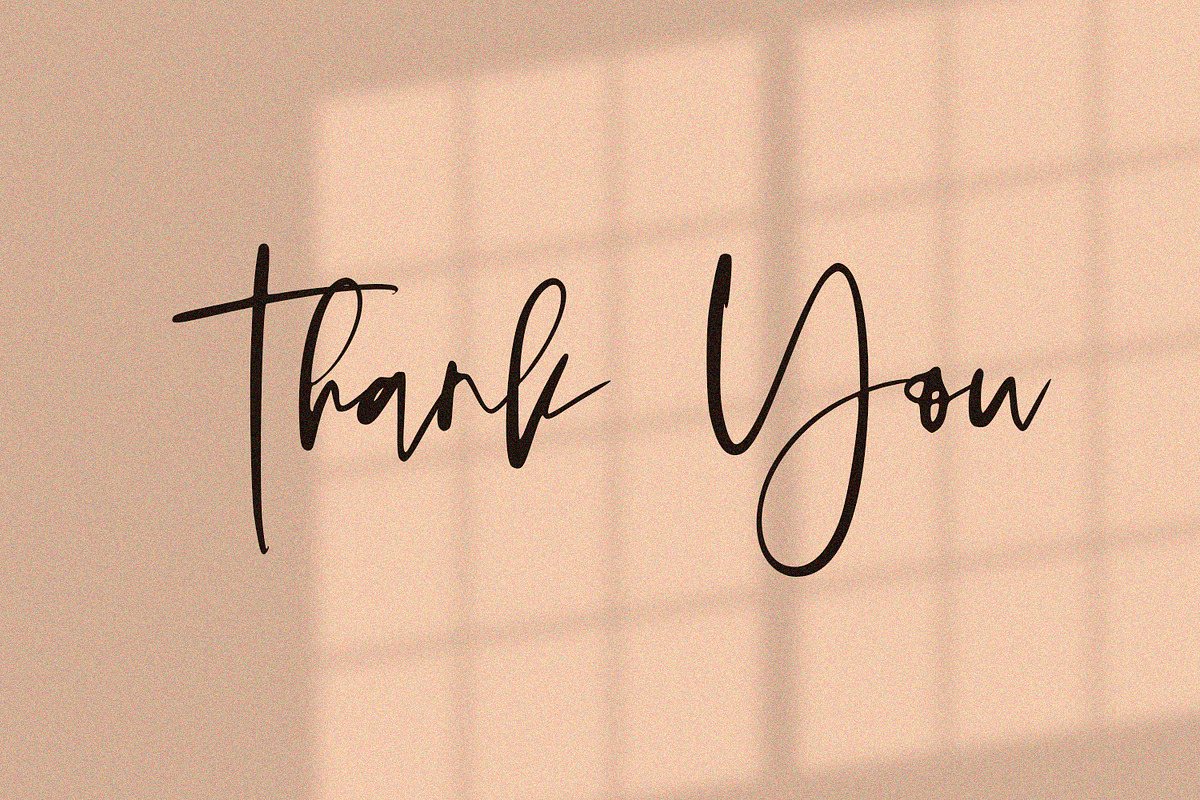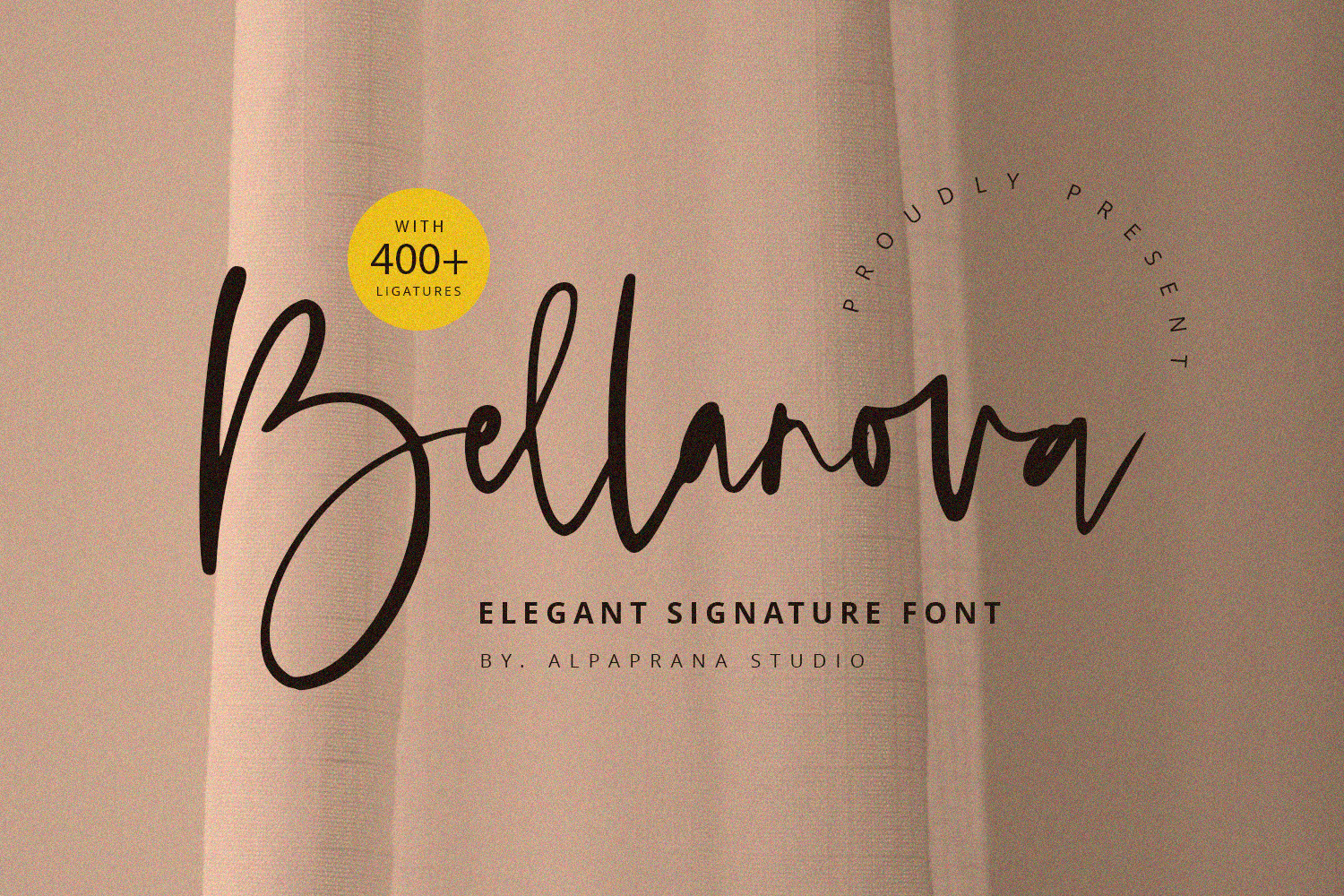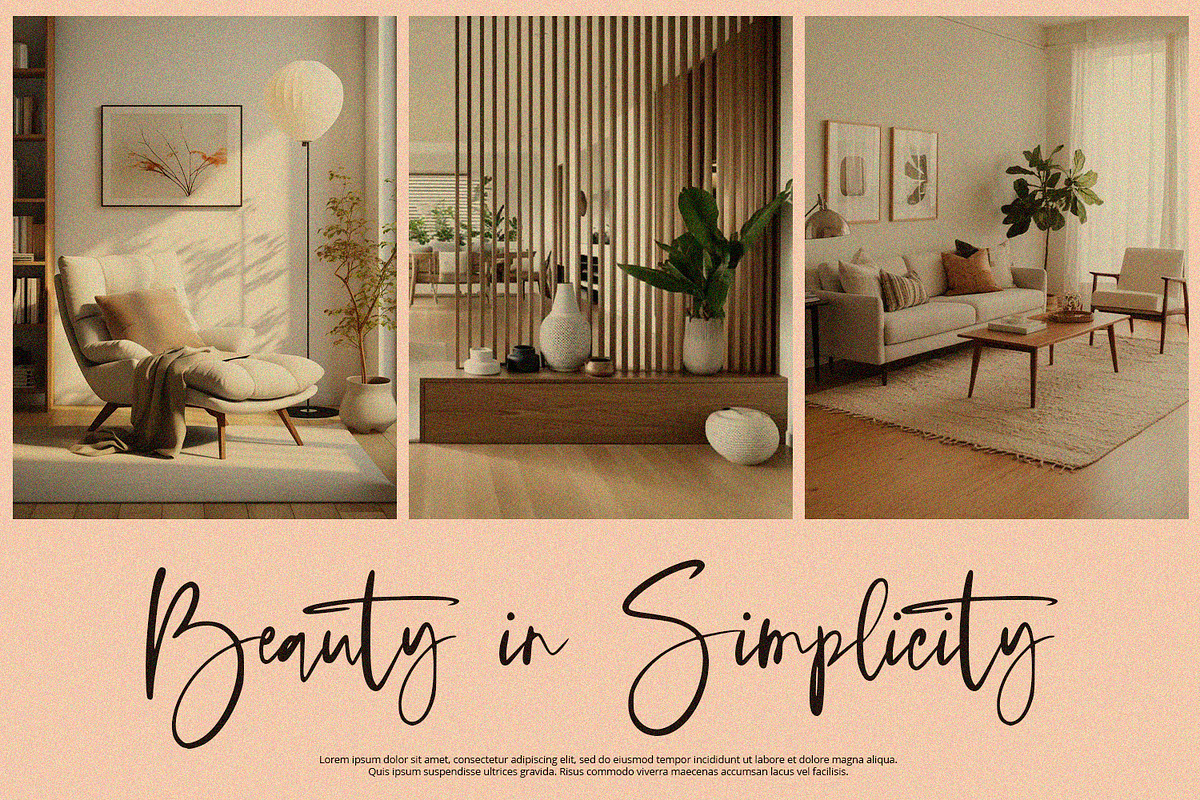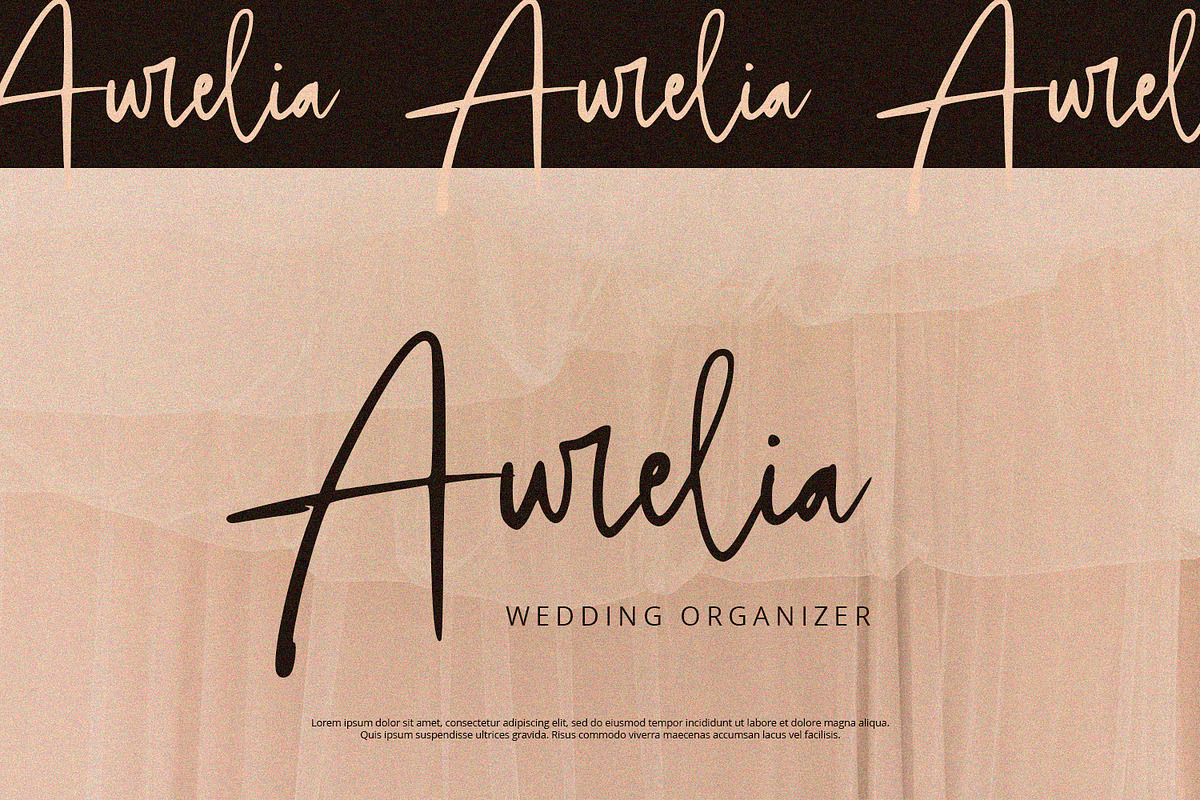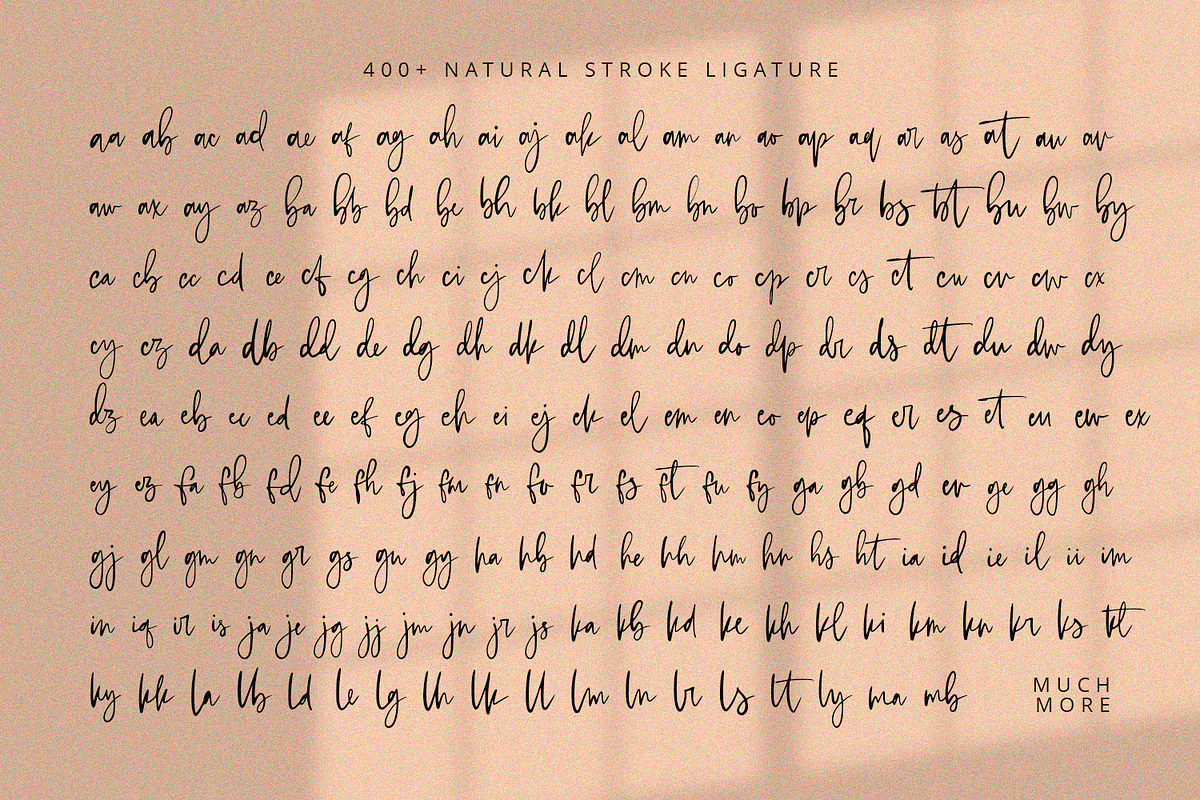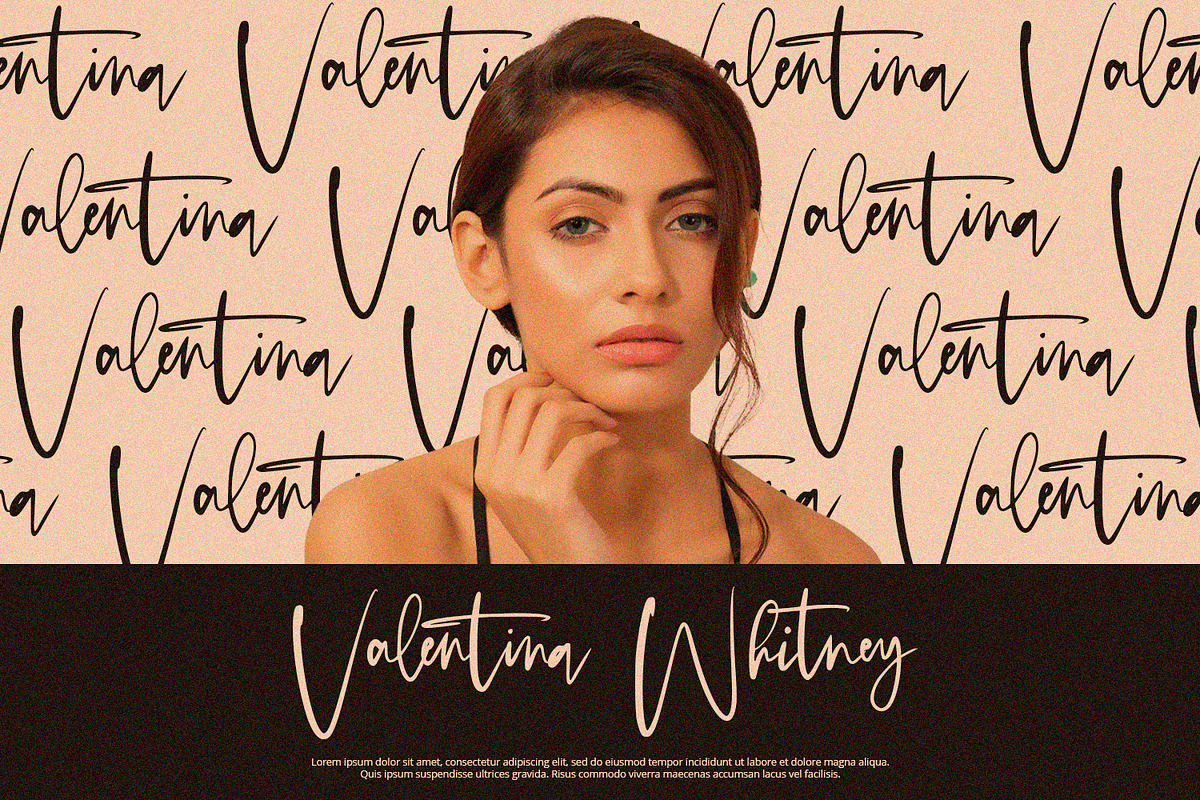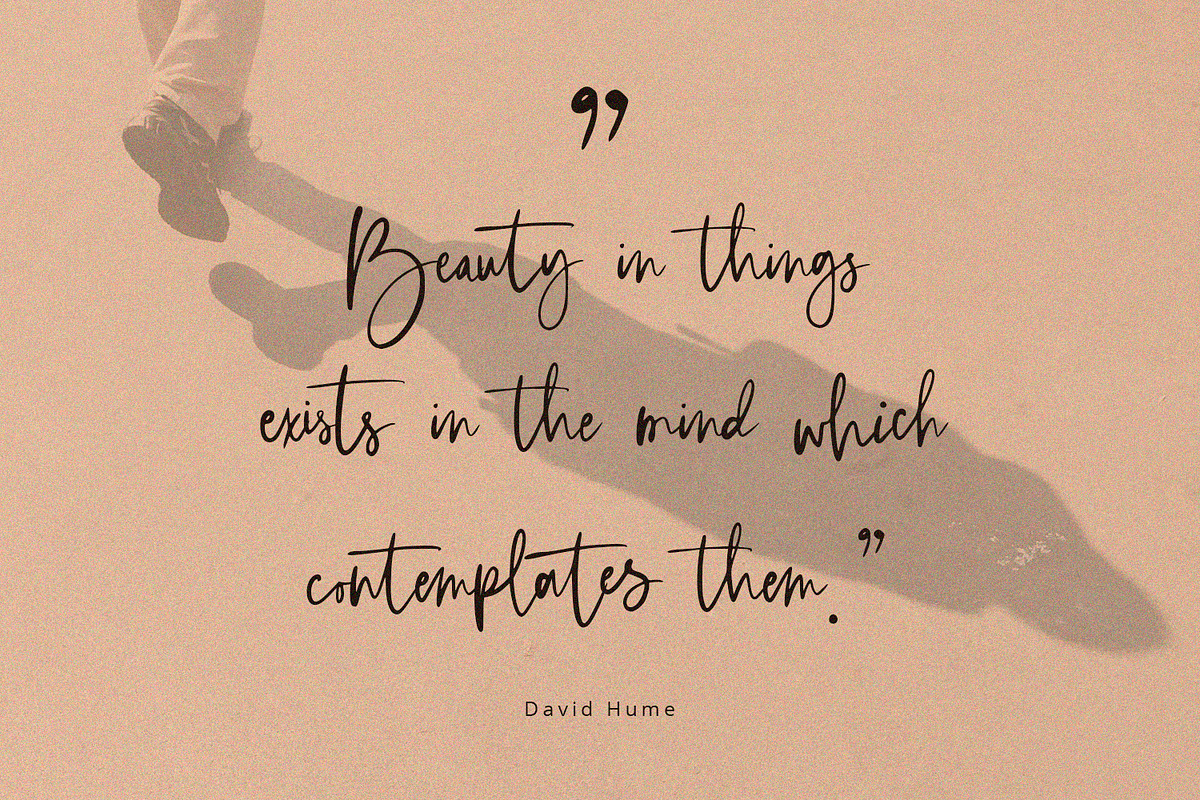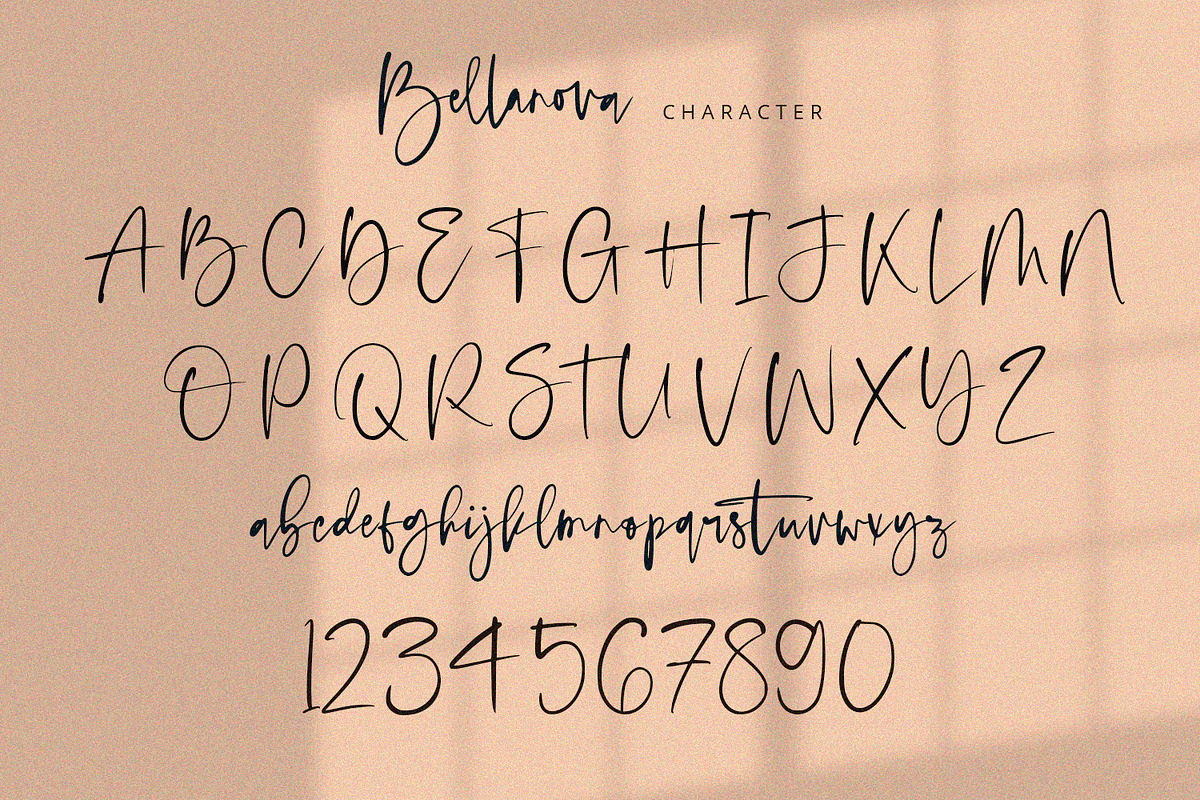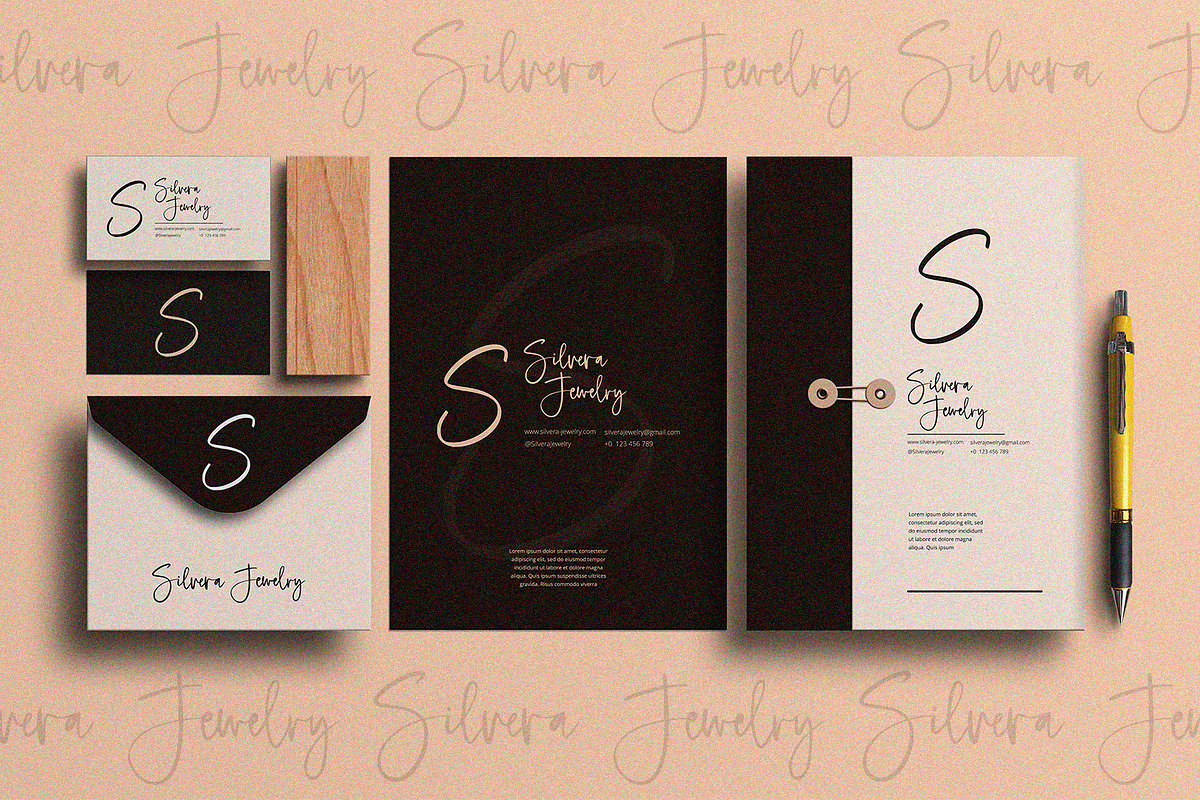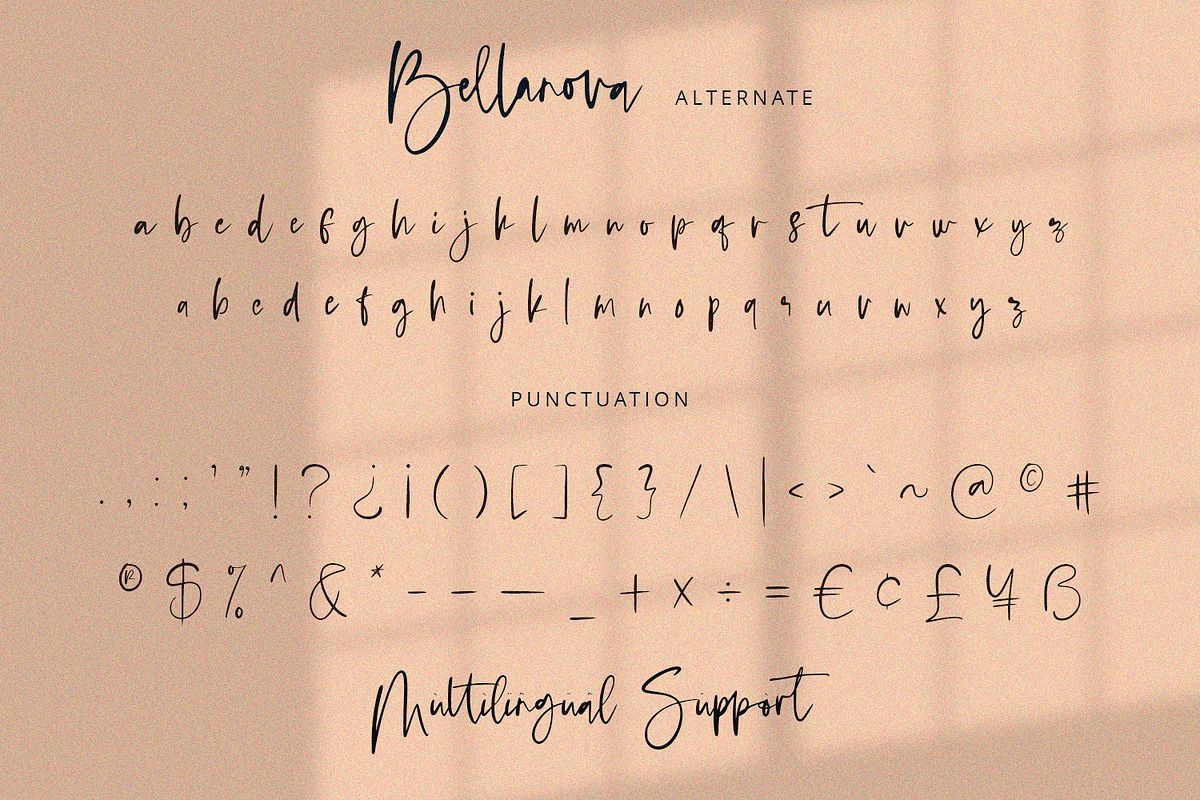
Bellanova - Signature Font
Bellanova is a signature font with unique and modern feels. It will be perfectly used for Branding, Logo Design, Lettering, Logotype, Clothing, Poster, magazine, packaging, posters, shopping bags, t-shirts, book covers, photography, special events and other design project.